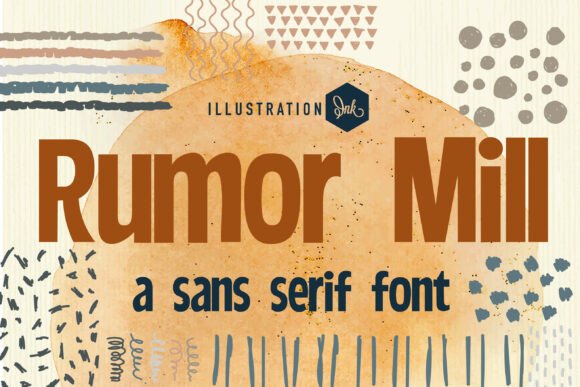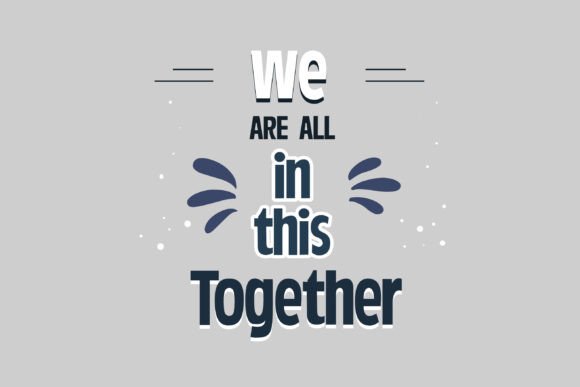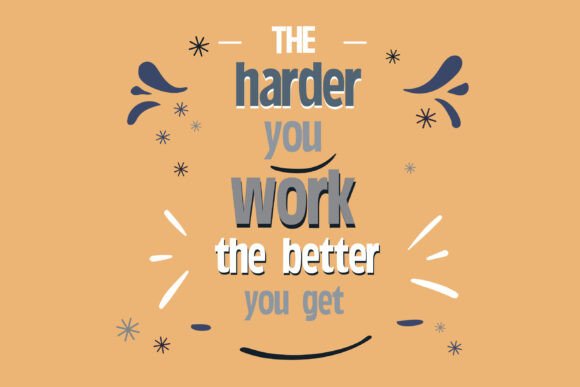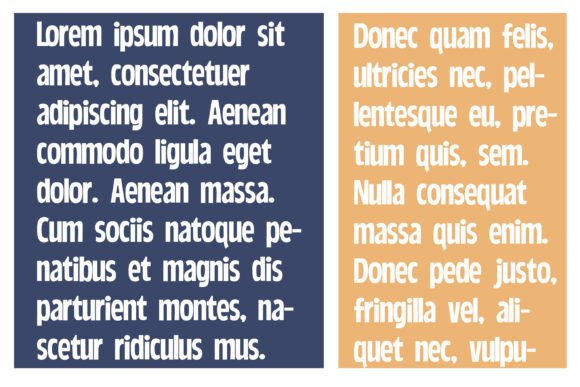
Rumor Mill Font
About the Rumor Mill Font
Meet Rumor Mill Font, a stunning font that brings a touch of elegance and professionalism to any design. This hand-crafted sans serif is a bold sans that is great for titles, displays and posters.
Rumor Mill’s bold strokes make it ideal for headlines, short impactful statements, and branding applications where a strong, confident voice is needed. It excels in poster design and packaging, particularly for products targeting a younger, more contemporary audience. However, its handcrafted nature and relatively high x-height make it less suitable for body text or lengthy paragraphs, and it may prove too visually busy for user interface elements.
Consider pairing Rumor Mill with a clean, geometric sans-serif like Futura for a modern contrast, or a classic serif such as Garamond for a touch of refined elegance. A script font like Allura could add a playful, handwritten counterpoint, softening the boldness of Rumor Mill while maintaining visual interest.
The overall personality of Rumor Mill is bold and energetic yet approachable; it conveys a sense of youthful dynamism and creative freedom. Brands aiming for a fresh, modern feel that values individuality will find it a strong asset.
Rumor Mill Font Usage Examples
Rumor Mill Font Example